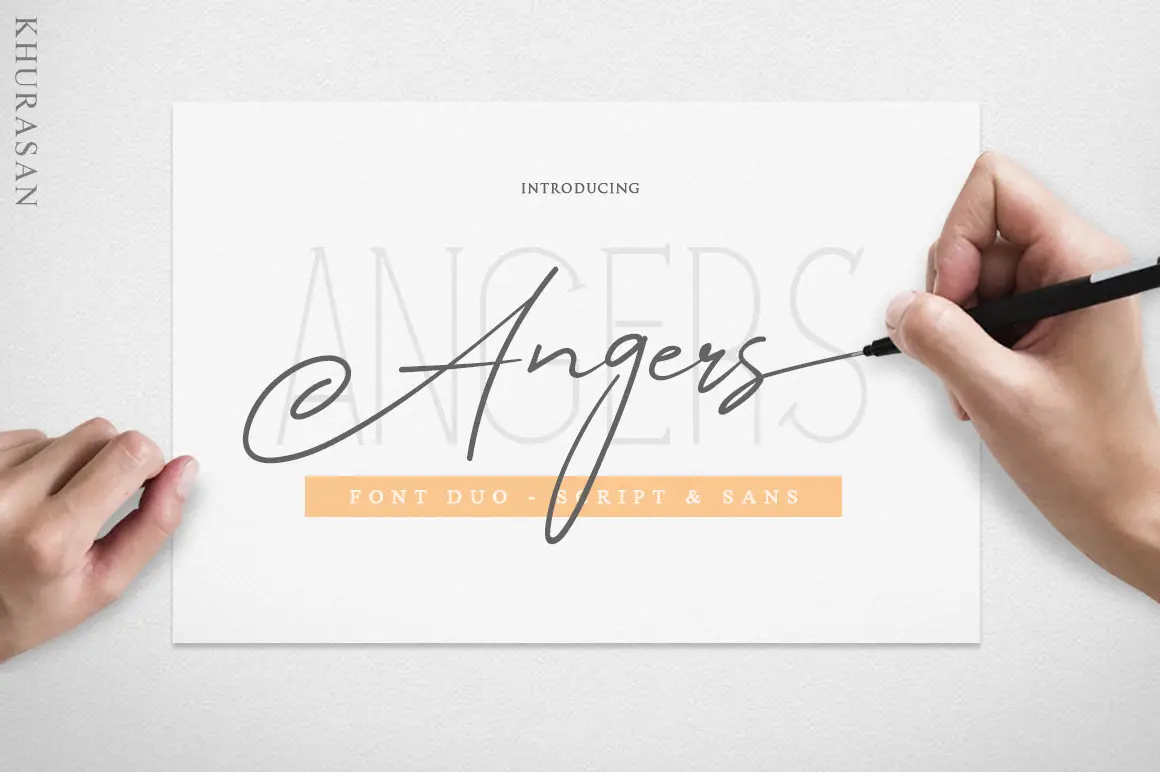
Angers Font Duo
The Angers Font Duo is a beautifully crafted typeface that combines elegance and versatility. This duo includes a script font and a sans-serif companion, making it perfect for a variety of design projects.
• Two distinct styles: script and sans-serif
• Multiple weights for added flexibility
• Stylish ligatures and alternates for unique text presentation
• Script font for decorative use
• Sans-serif for clean, modern looks
• Perfect for web design and print projects
• Use the script font for headings and the sans-serif for body text for a balanced look